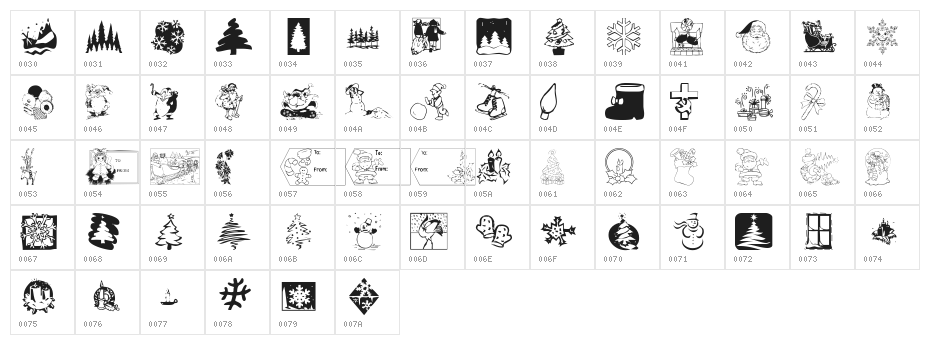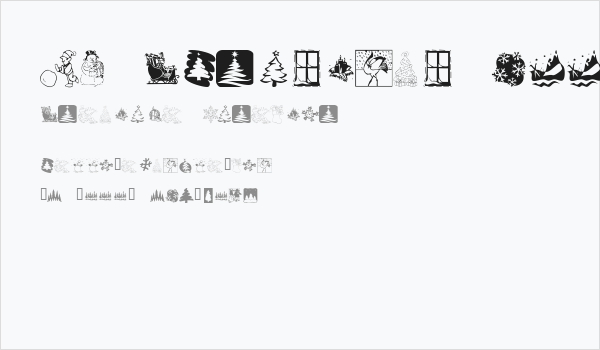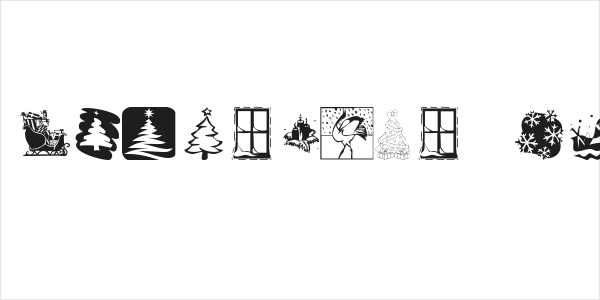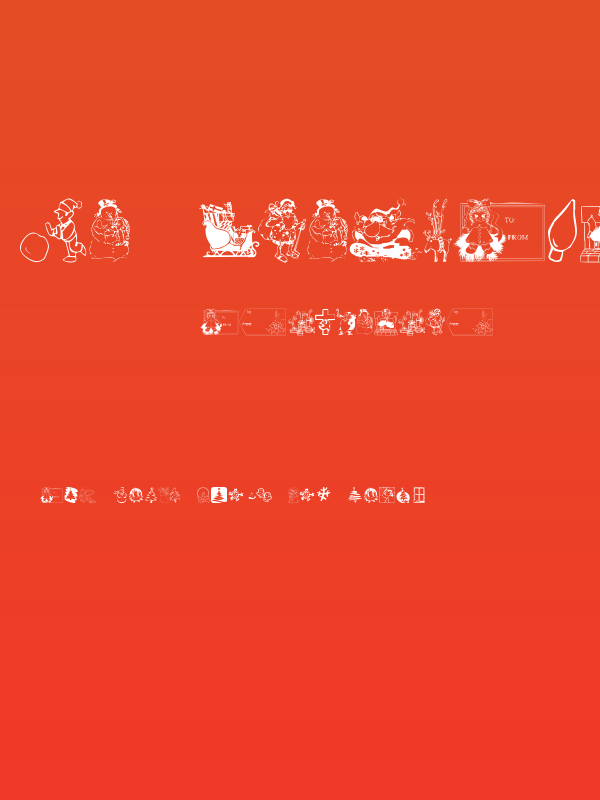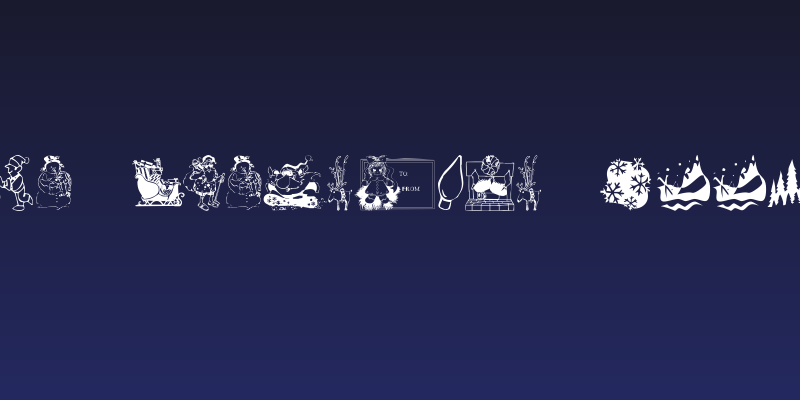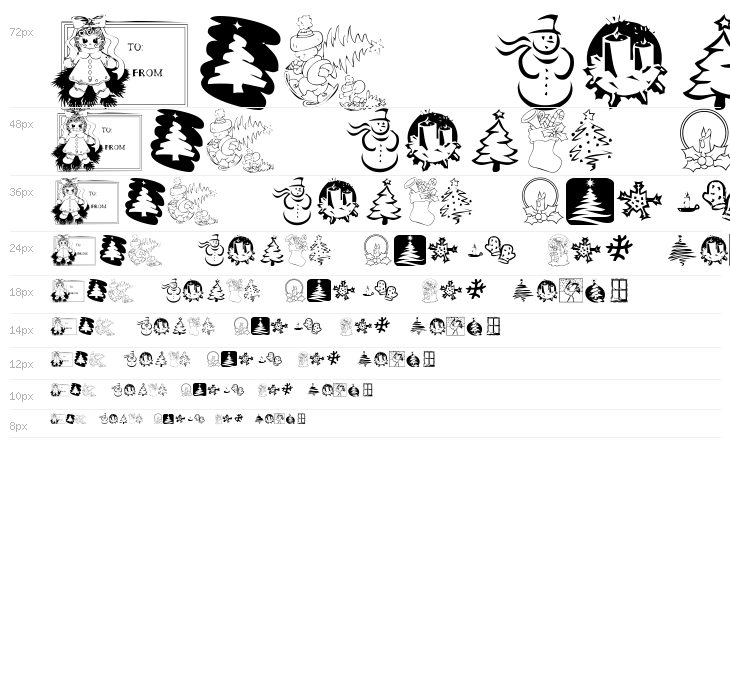
KR Christmas 2001 Font
KR Christmas 2001 Description
This is a decorative font featuring a variety of Christmas-themed illustrations. Each character is represented by a unique holiday image, including Santa Claus, snowmen, Christmas trees, and other festive symbols. The style is playful and whimsical, capturing the joyful spirit of the holiday season. The images are detailed and vary in complexity, making them suitable for decorative purposes. This font is ideal for adding a festive touch to holiday cards, invitations, and other seasonal projects.
| Use Case | Logos, Headlines, Decorative elements |
| Proposed Projects | Ideal for holiday cards, festive invitations, seasonal decorations, and Christmas-themed graphic designs. |